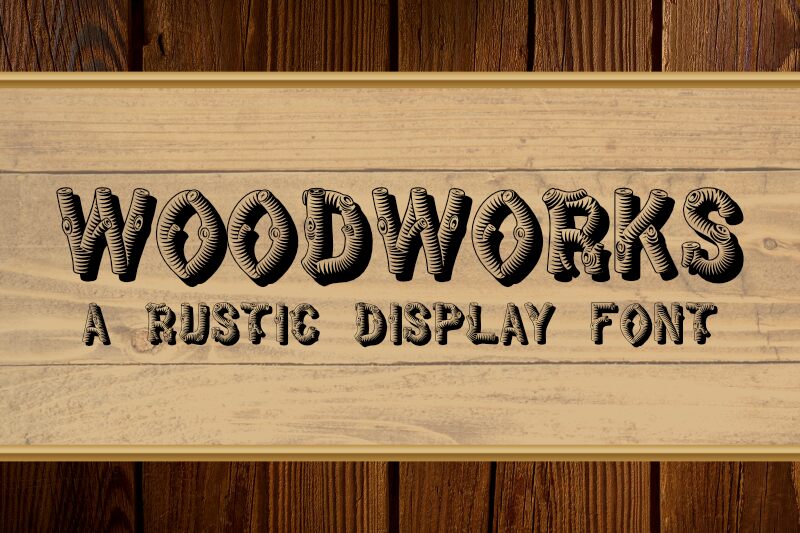
WoodWorks Plain
WoodWorks Plain captures the rustic elegance of wooden logs, infusing a playful yet sophisticated charm into your designs. This decorative display font draws inspiration from 19th-century typography, combining historical flair with modern readability. Each character is thoughtfully crafted to evoke a natural, textured appearance that speaks to both craftsmanship and artistry.
The aesthetic appeal of WoodWorks lies in its striking design—bold enough to make a statement while still being clean and versatile for various media. Perfect for vintage posters, attention-grabbing headlines, and distinctive branding efforts, WoodWorks adapts seamlessly across digital and print contexts. Whether you're looking to add rustic charm to a logo or create eye-catching promotional materials, this font offers the flexibility and unique character needed to elevate any project with its timeless wooden beauty.